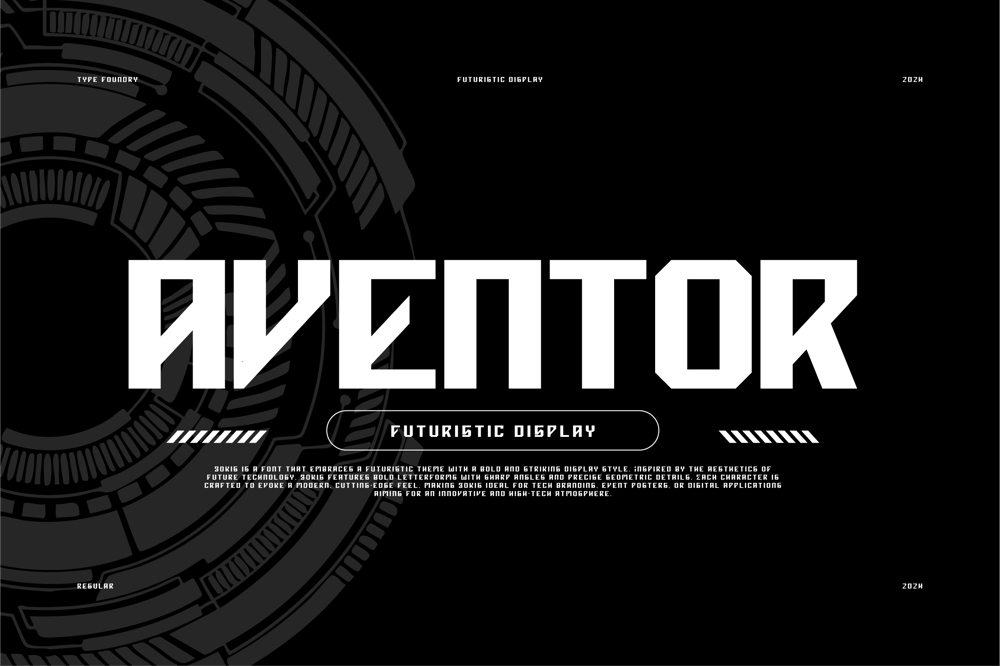
Aventor
Aventor font
Aventor Font Family was designed by Agus Prima and published by Valiantbrotha. Aventor contains 1 styles and family package options. Aventor is a futuristic font crafted for innovators and designers seeking a bold, modern aesthetic. Its sleek lines and geometric shapes evoke a sense of technological advancement.